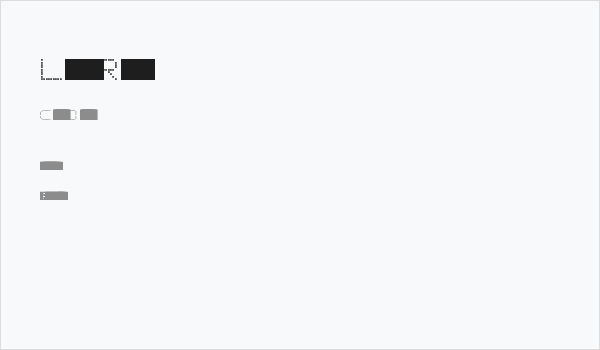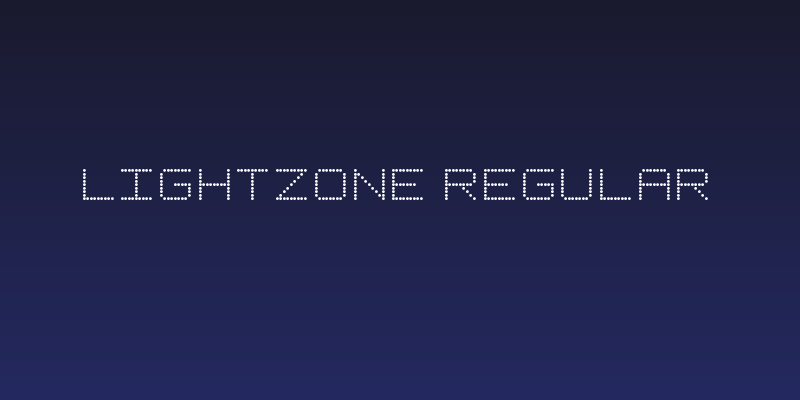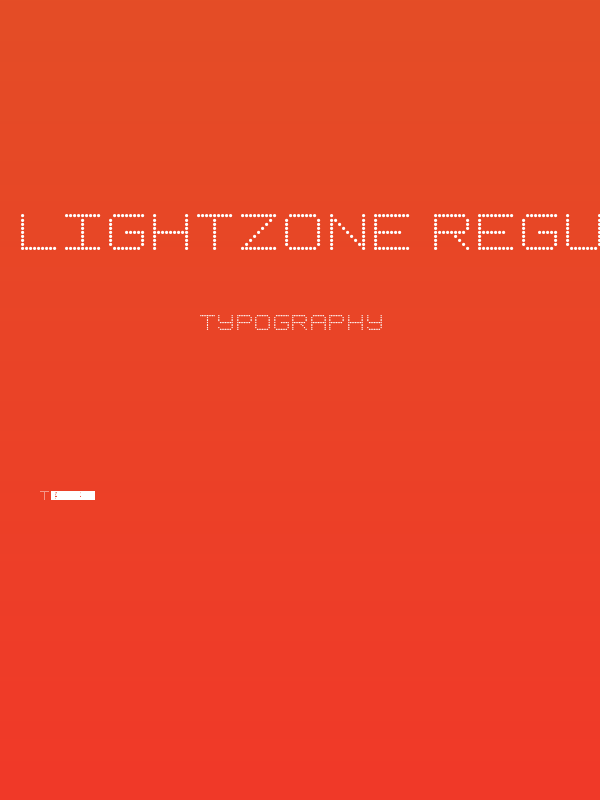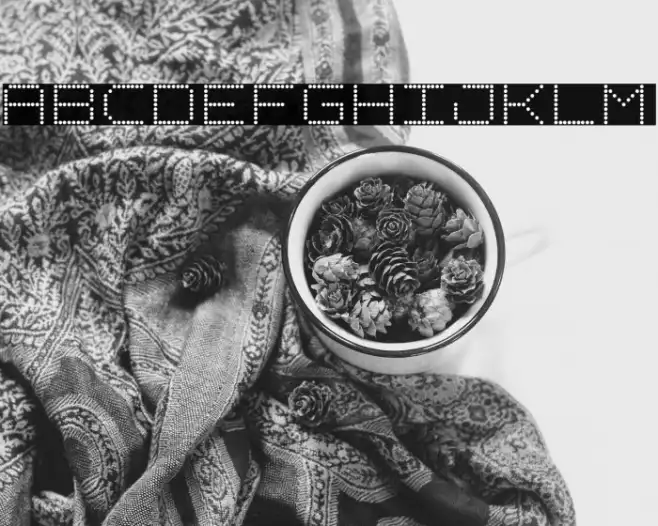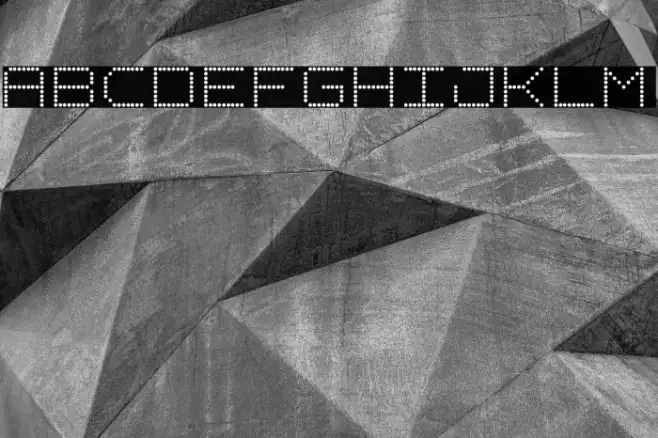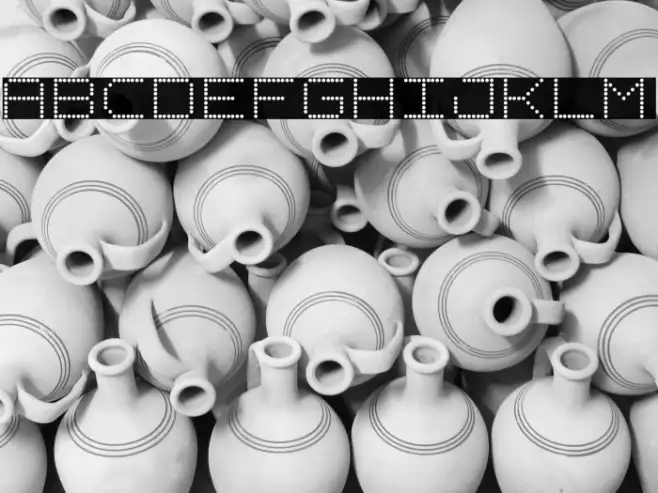
Lightzone Regular Font
Lightzone Regular Description
This font features a unique dotted design, where each character is composed of small, evenly spaced dots forming the shape of the letters and numbers. The style is geometric and structured, giving it a modern and digital feel. The uppercase and lowercase letters maintain a consistent height and width, ensuring uniformity across the text. The numbers and special characters follow the same dotted pattern, creating a cohesive look. This font's distinct appearance makes it stand out, ideal for projects that require a futuristic or tech-inspired aesthetic.
| Use Case | Logos, Headlines, Digital displays |
| Proposed Projects | Ideal for digital displays, tech-themed designs, futuristic branding, and creative posters. |